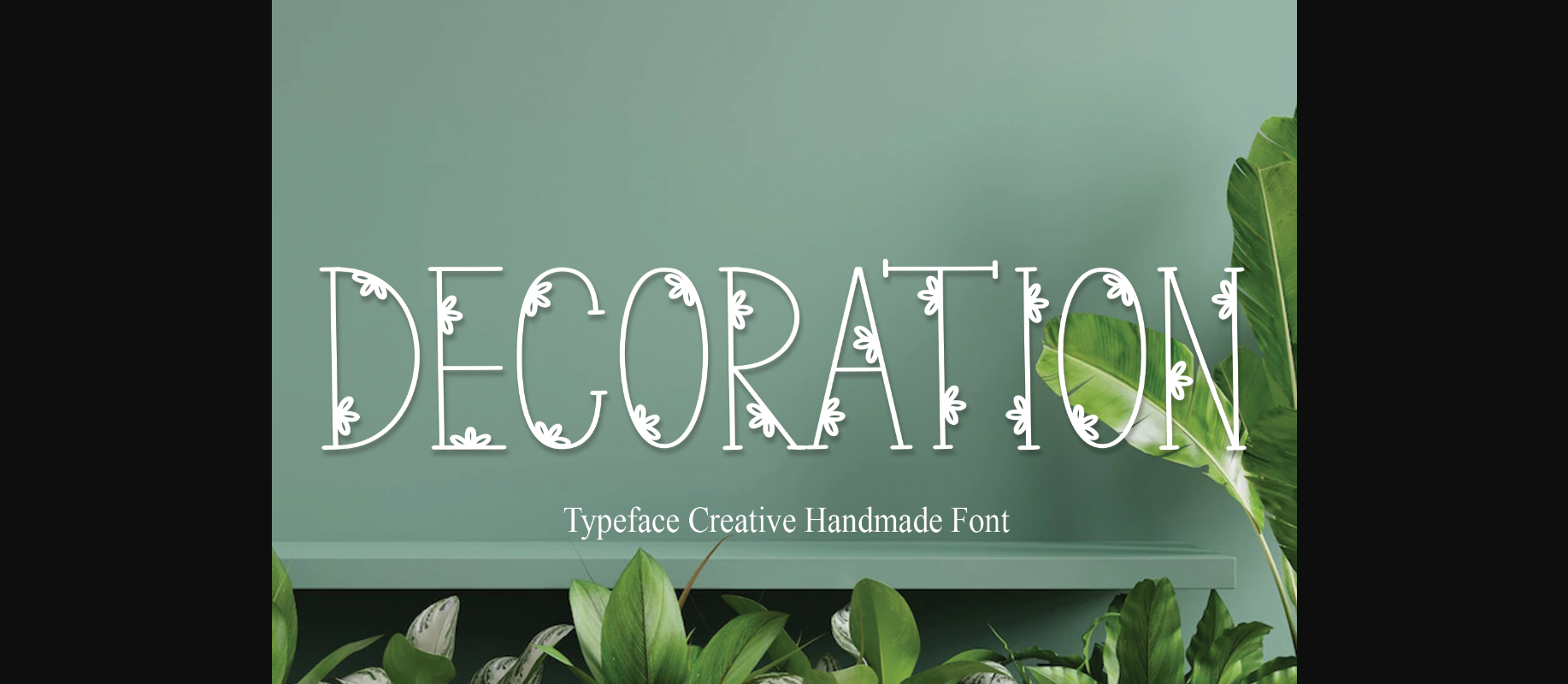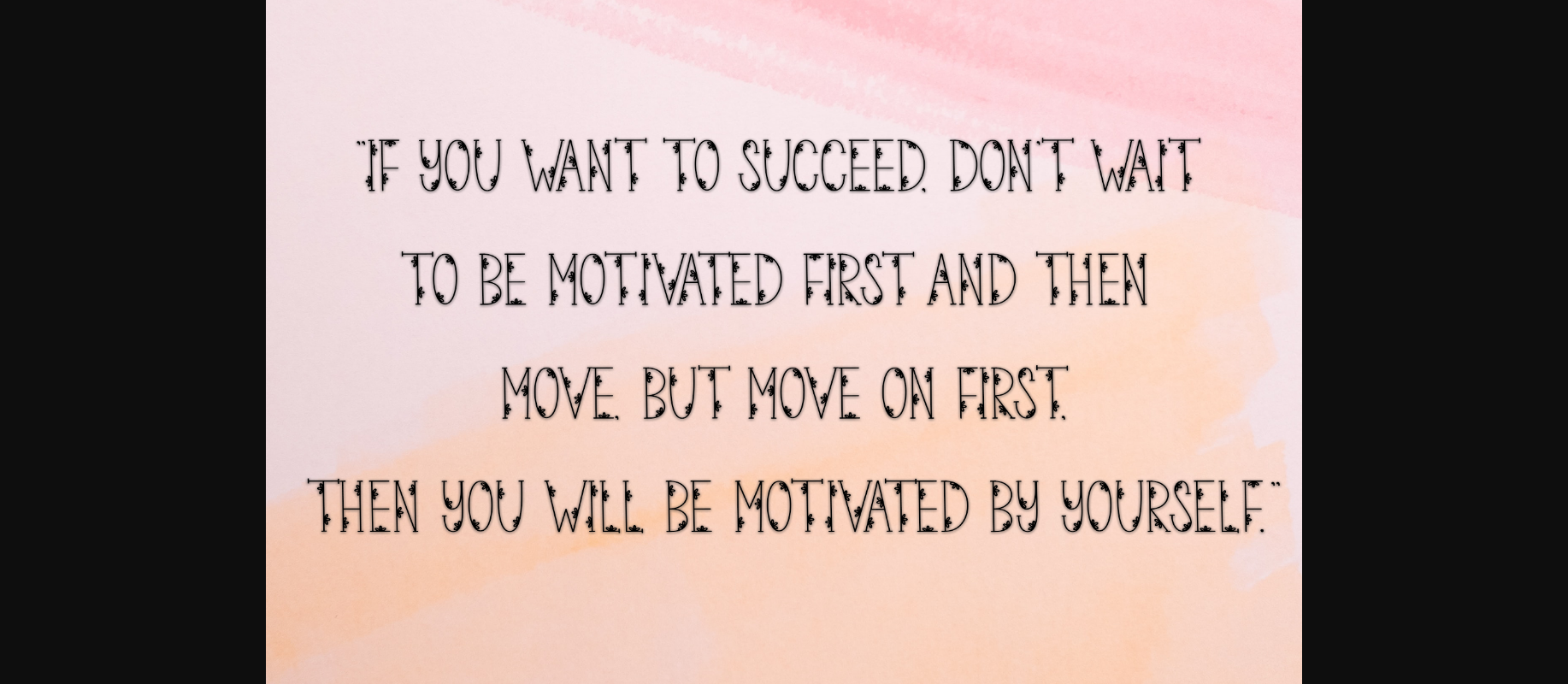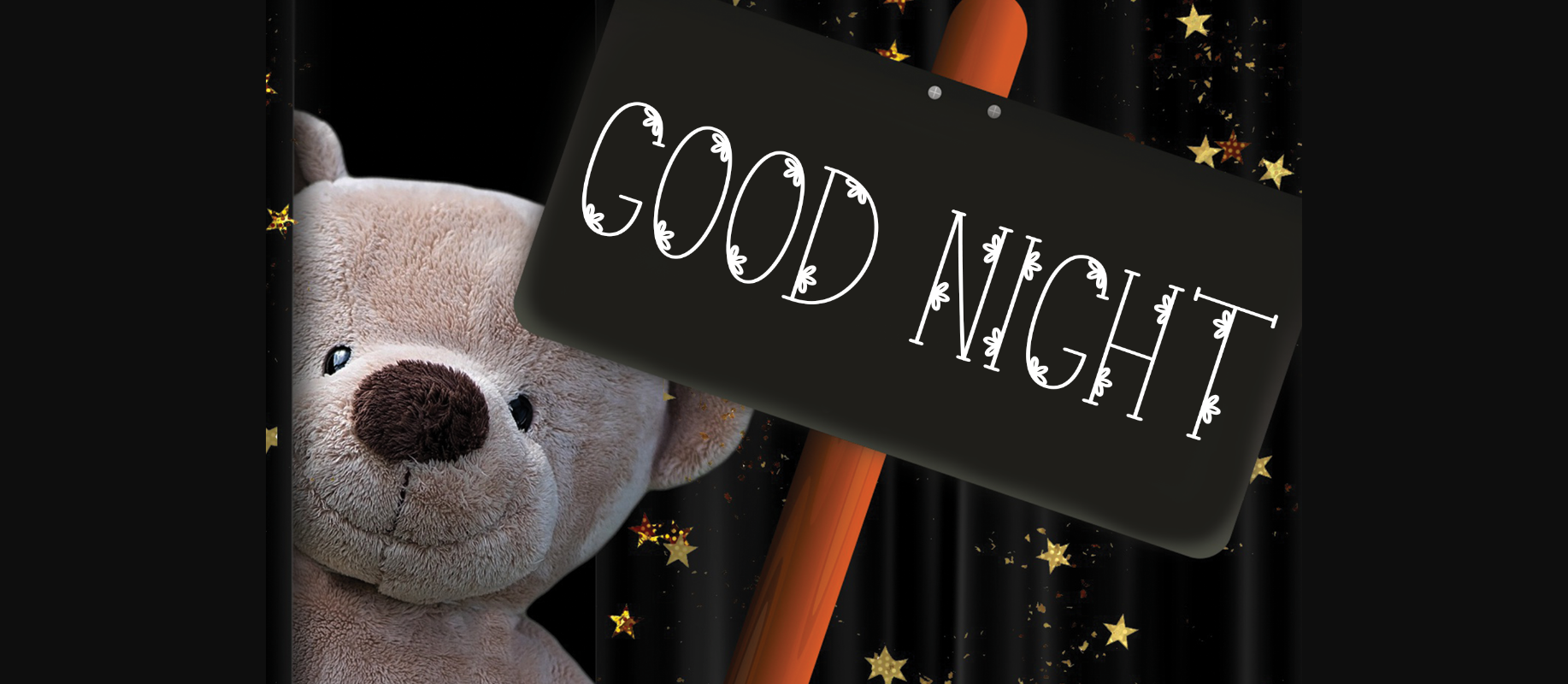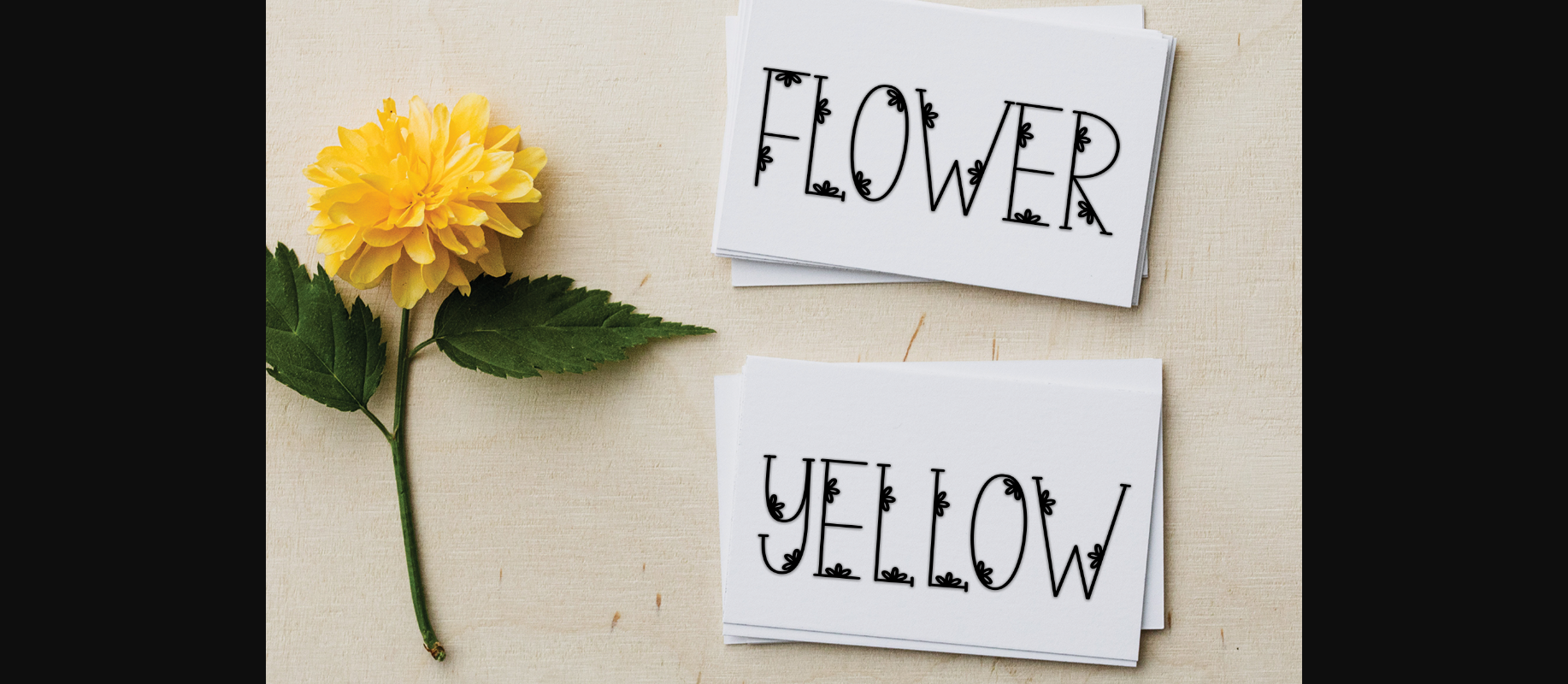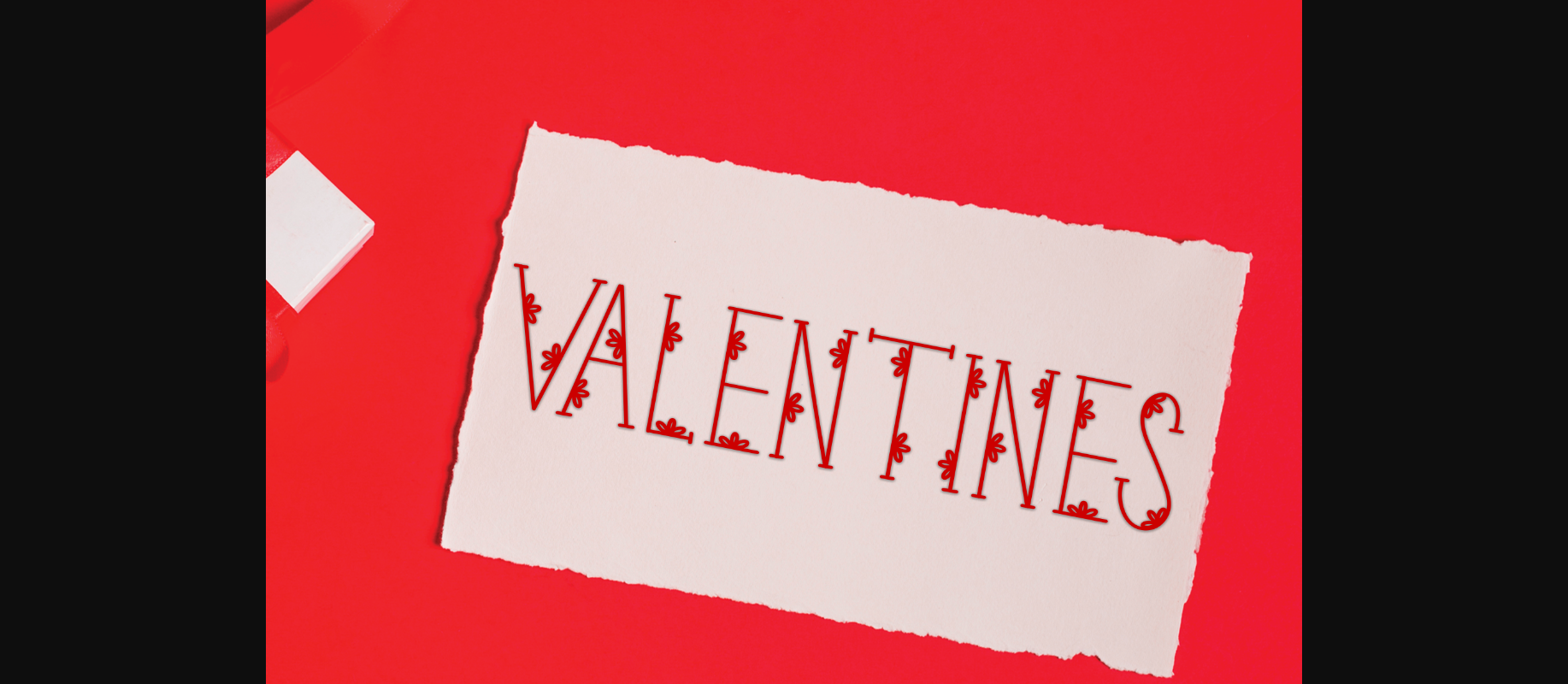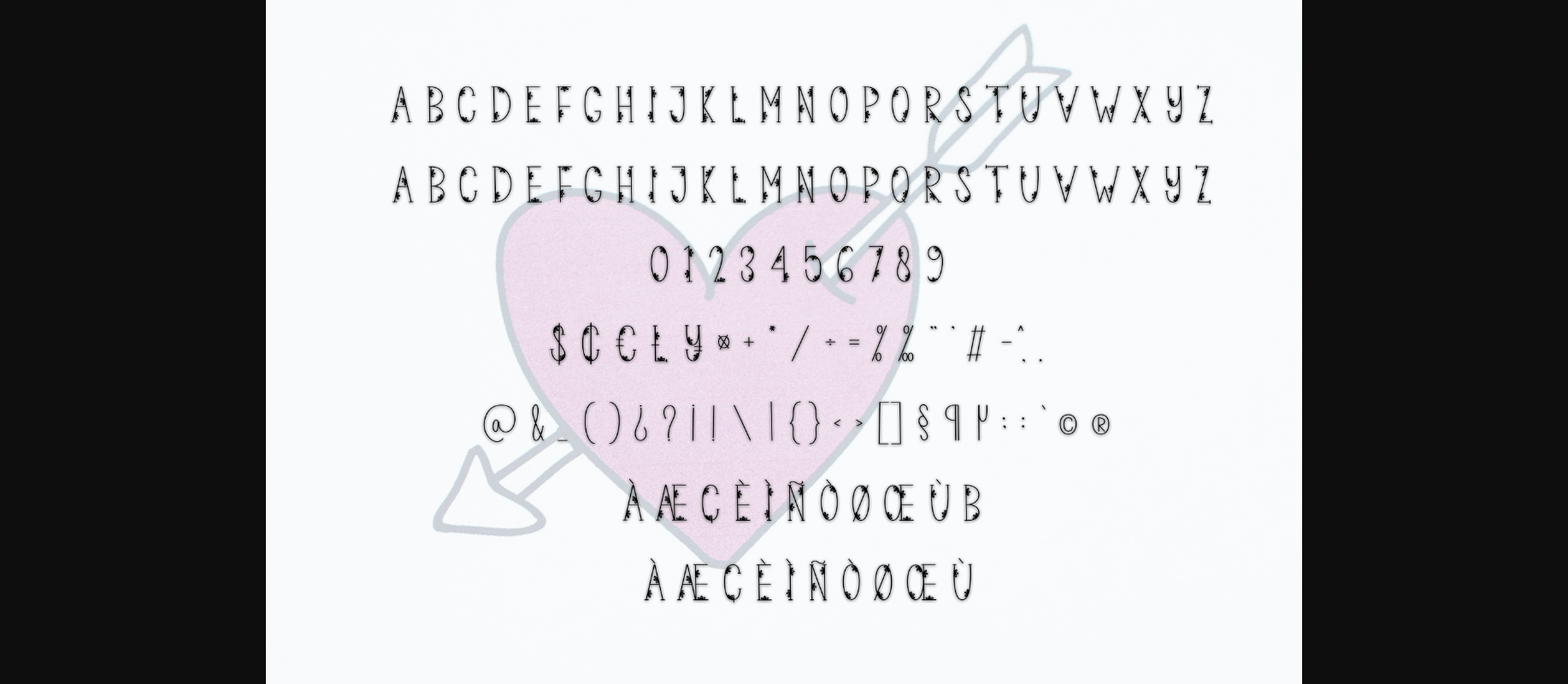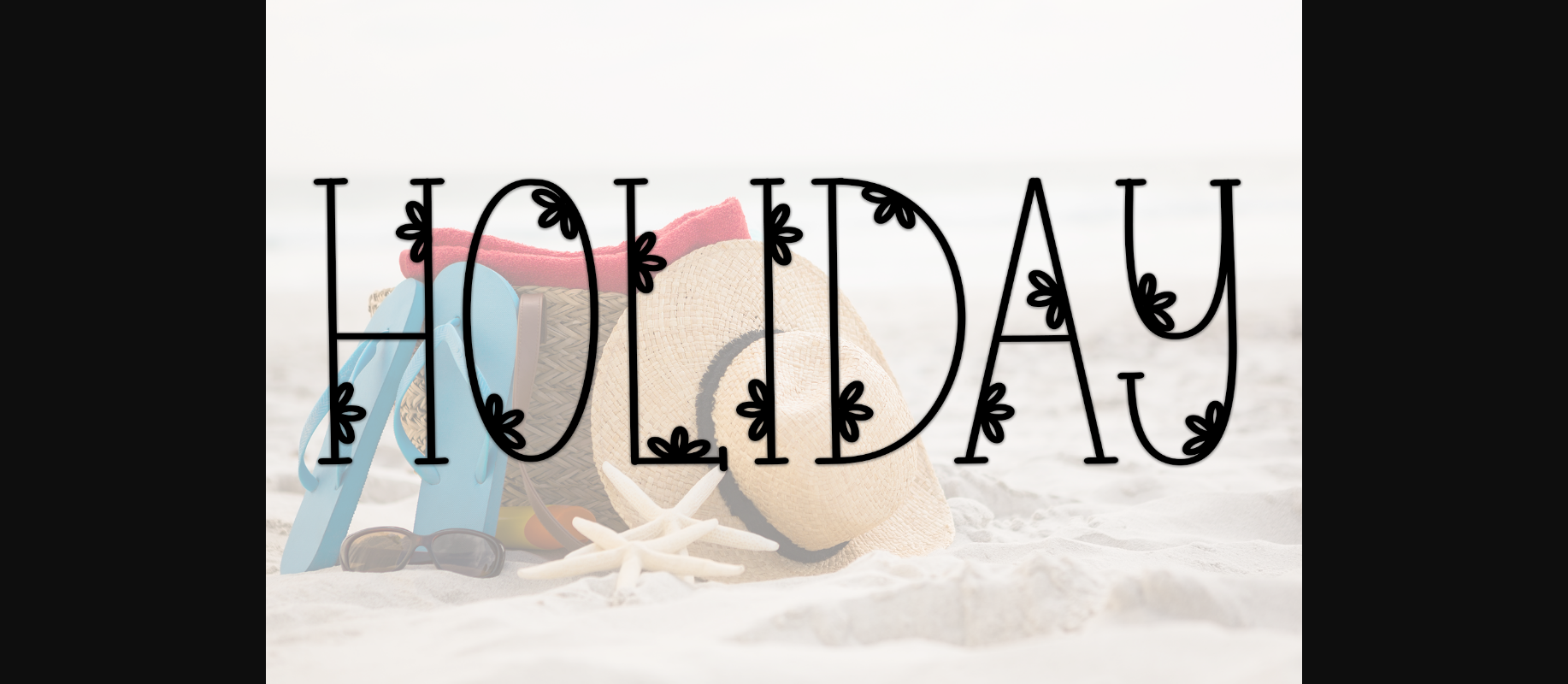
Decoration is a sweet and friendly handwritten decorative font. Cute and fun, this font is ideal for writing wedding invitations, cards, or any other design that might need a fun touch!